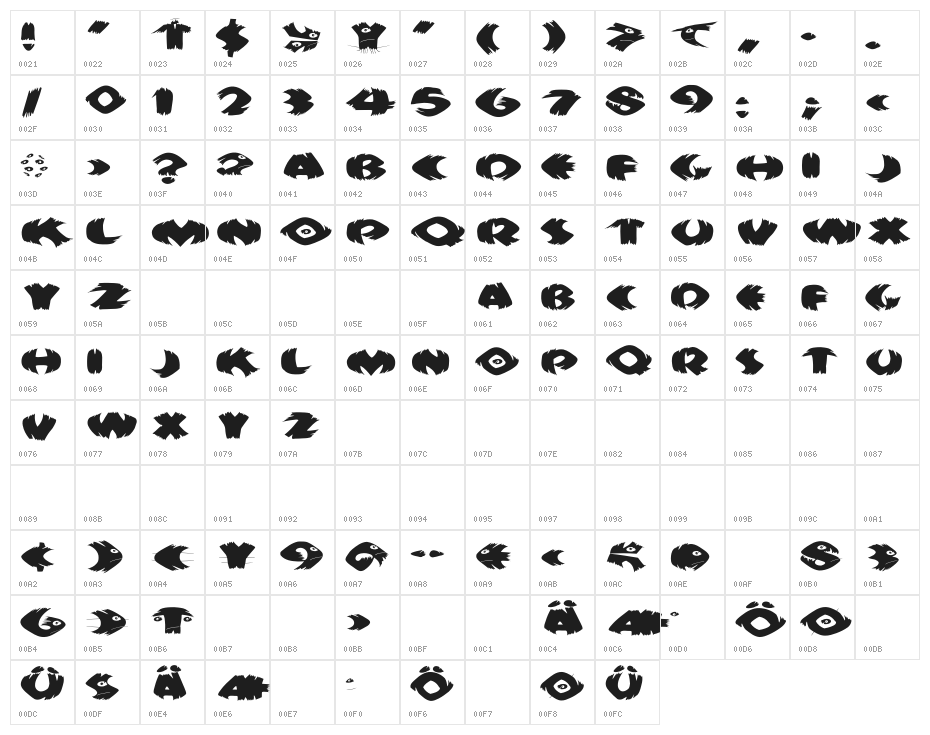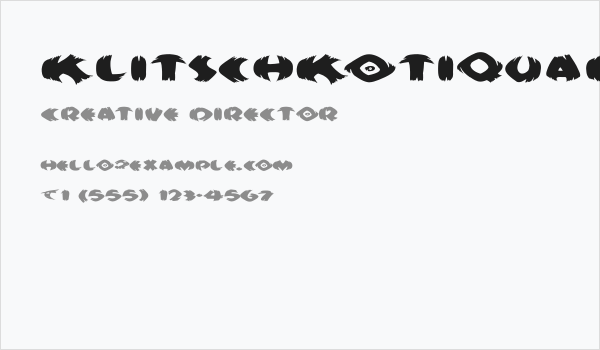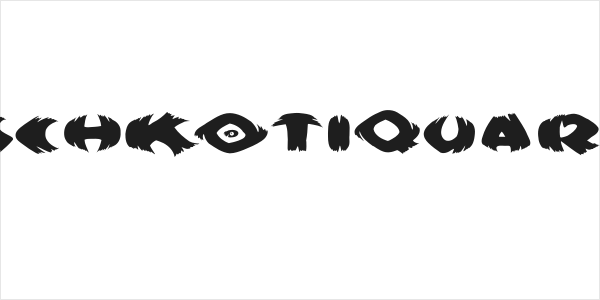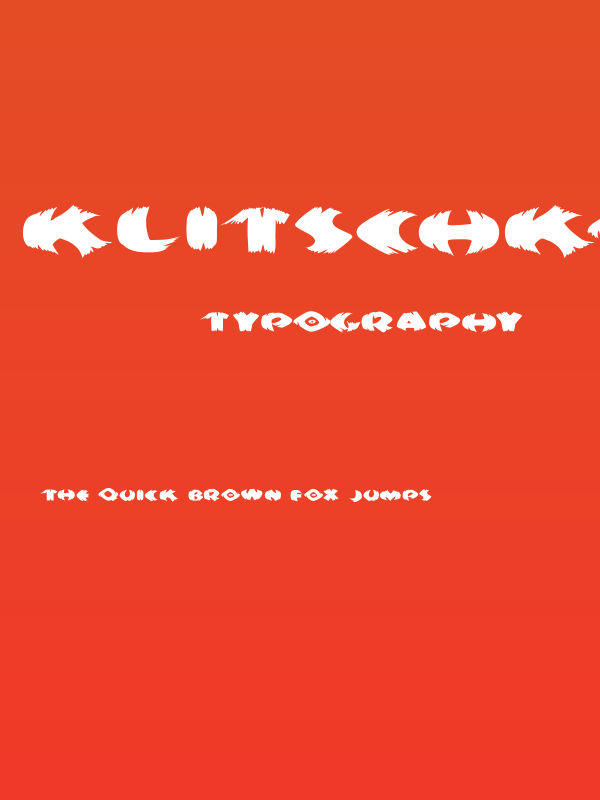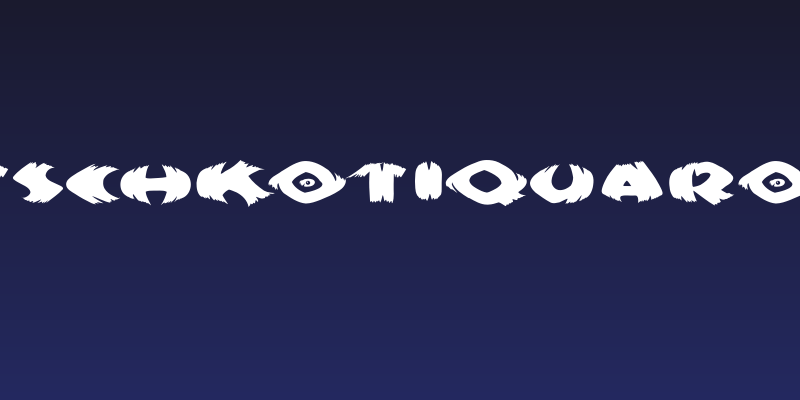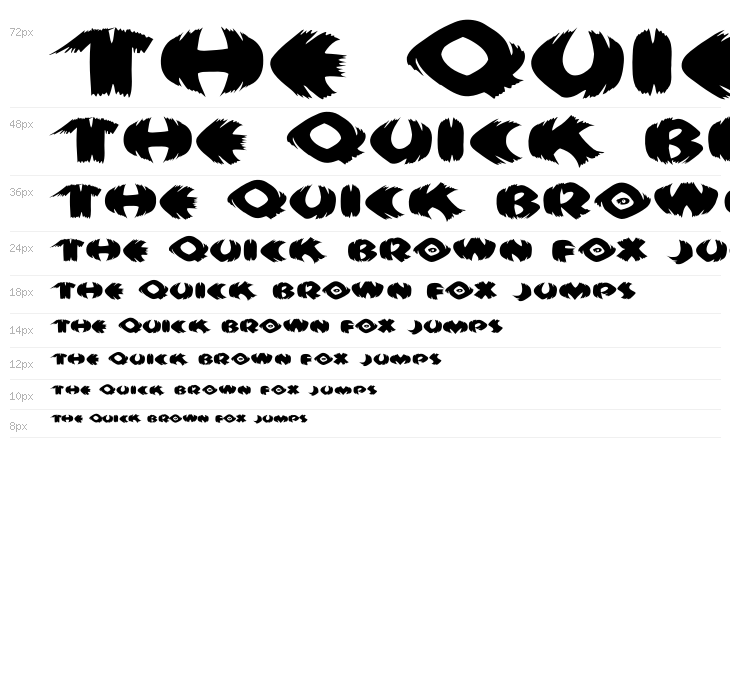
KlitschKOtiquaRound Font
KlitschKOtiquaRound Description
This font features a bold and dynamic style with a unique, jagged appearance that resembles torn paper or claw marks. Each character is crafted with sharp edges and irregular shapes, giving it a wild and untamed look. The uppercase and lowercase letters maintain a consistent theme, while the numbers and special characters integrate seamlessly with the overall design. The font's distinctiveness makes it stand out, capturing attention with its fierce and edgy aesthetic. It's perfect for projects that require a strong visual impact, such as posters, album covers, or branding for edgy products.
| Proposed Projects | Ideal for posters, album covers, edgy branding, and any project needing a strong visual impact. |